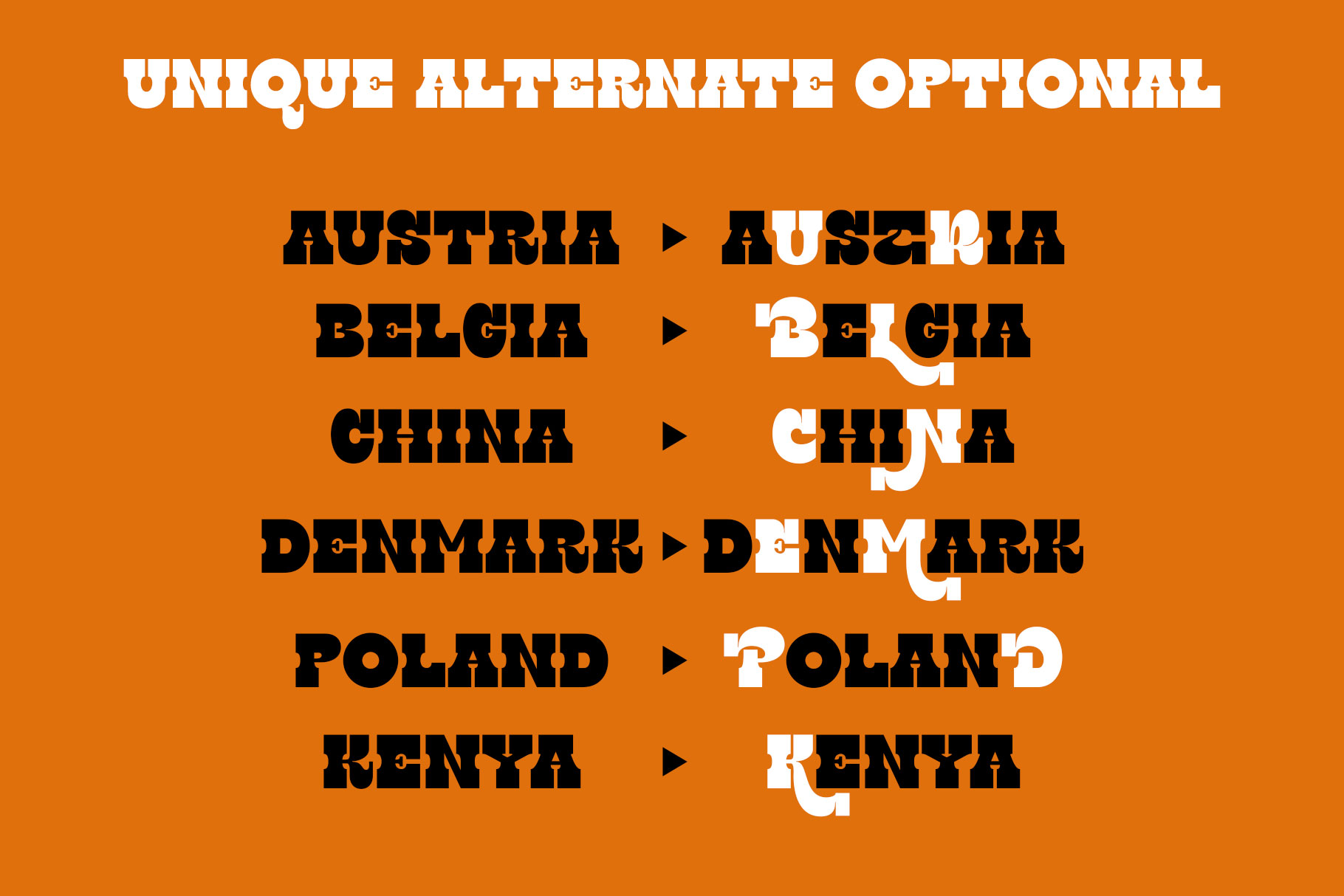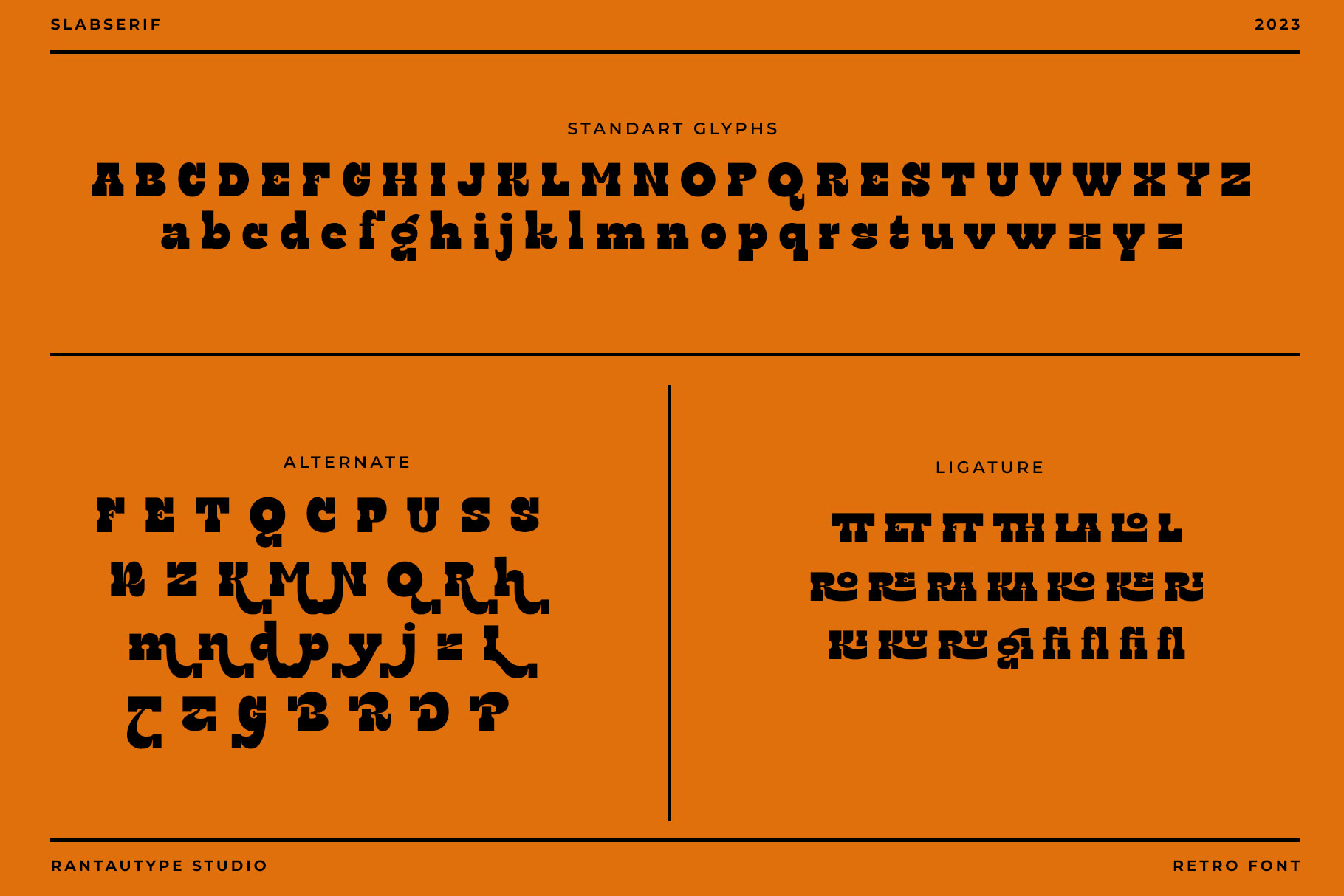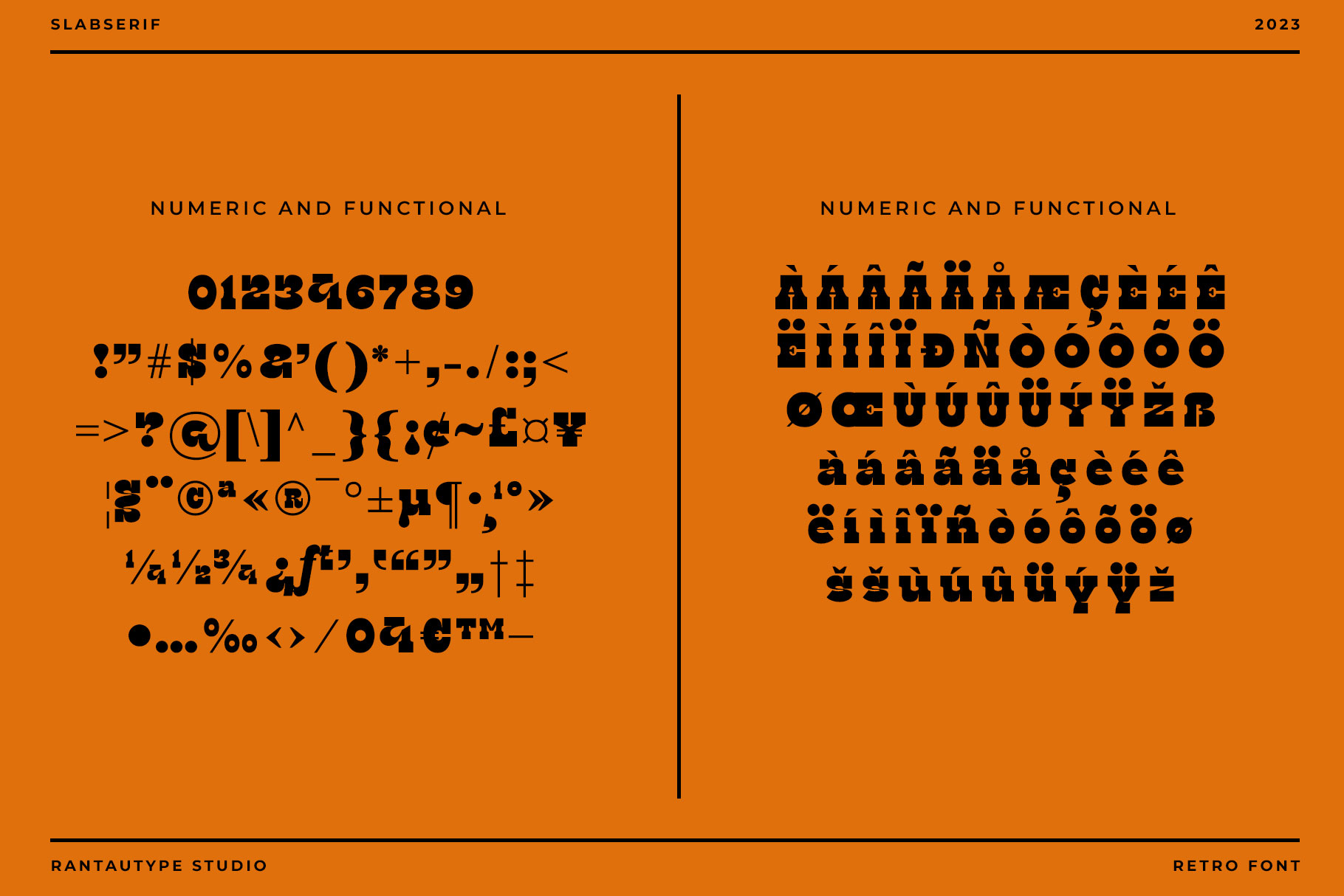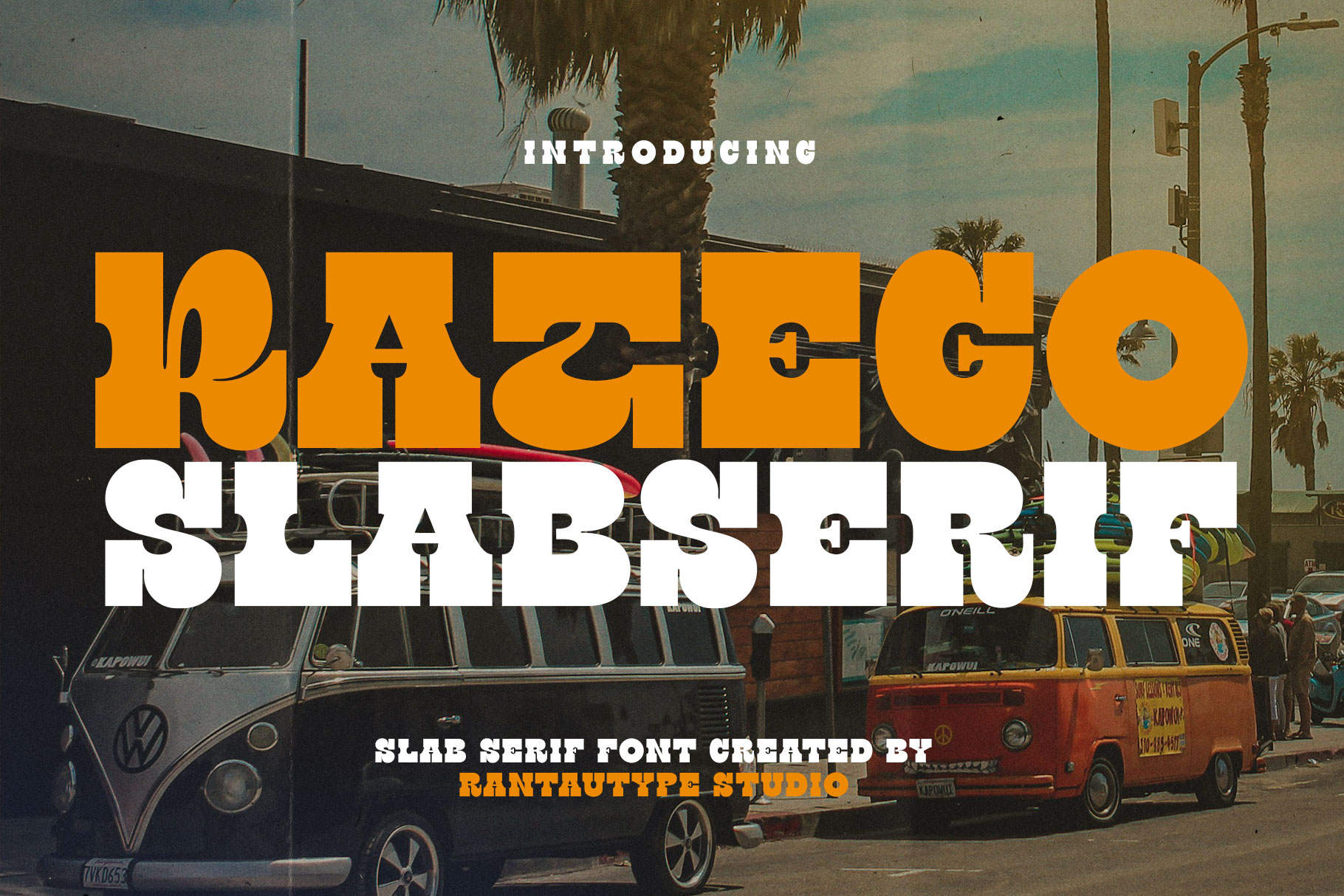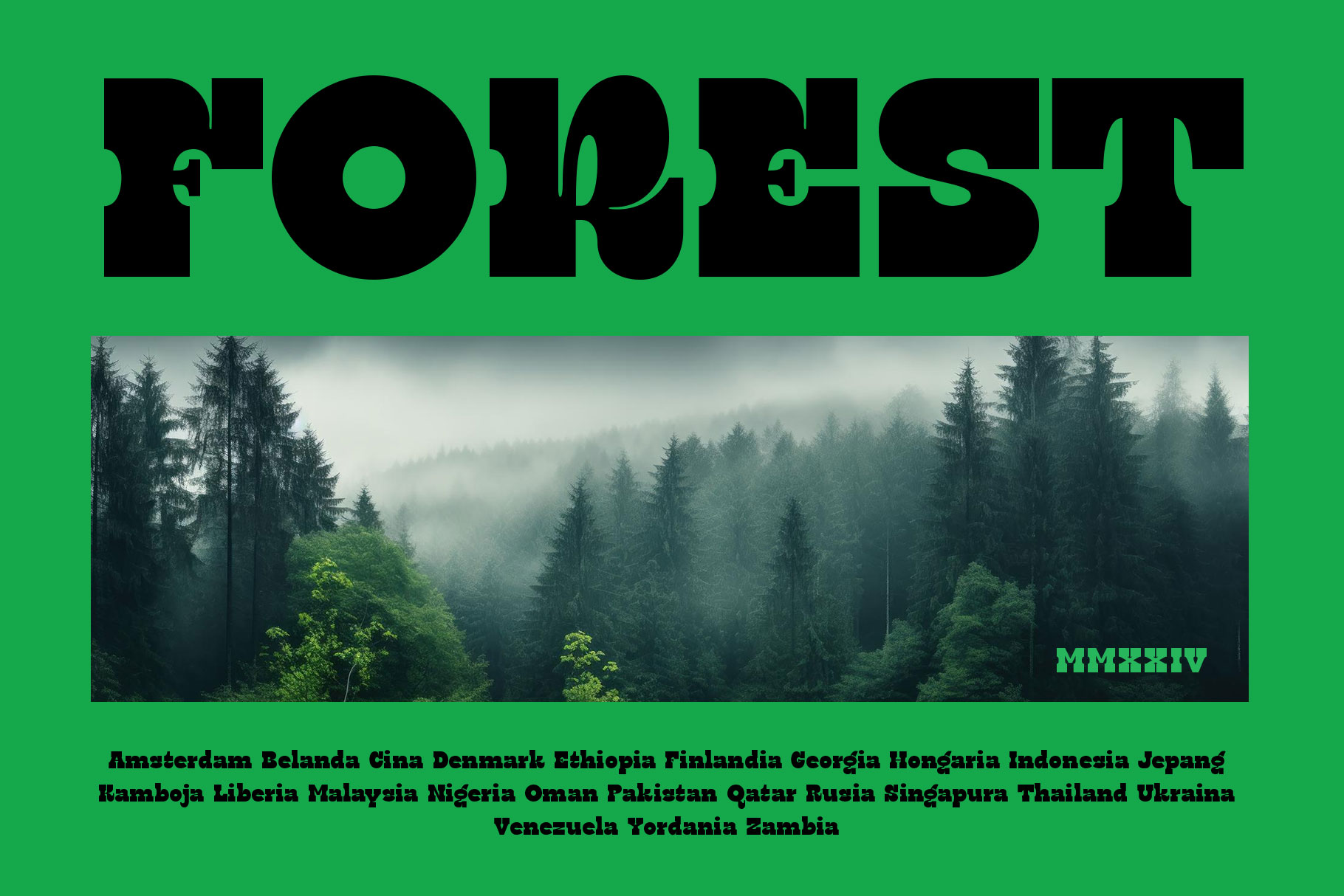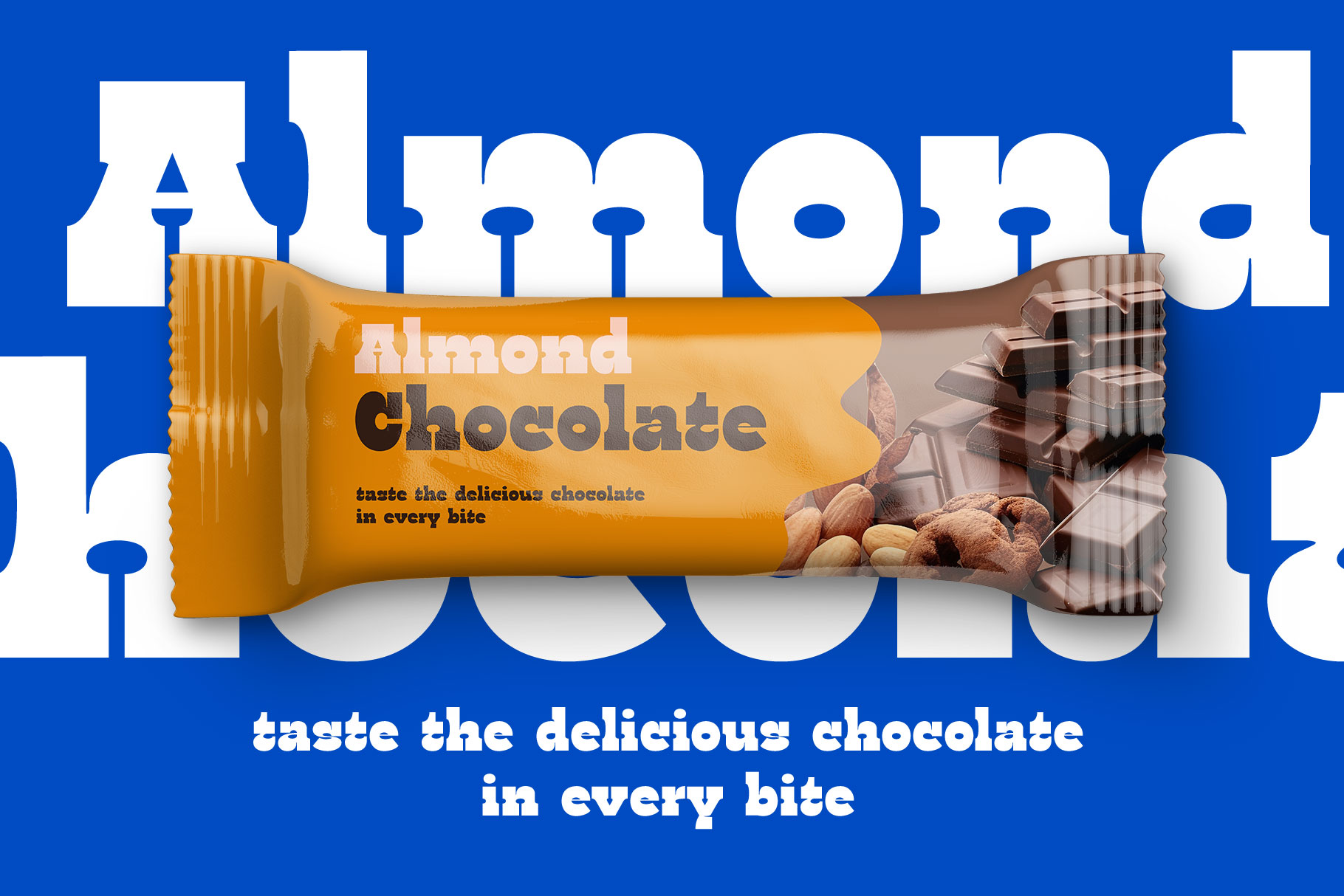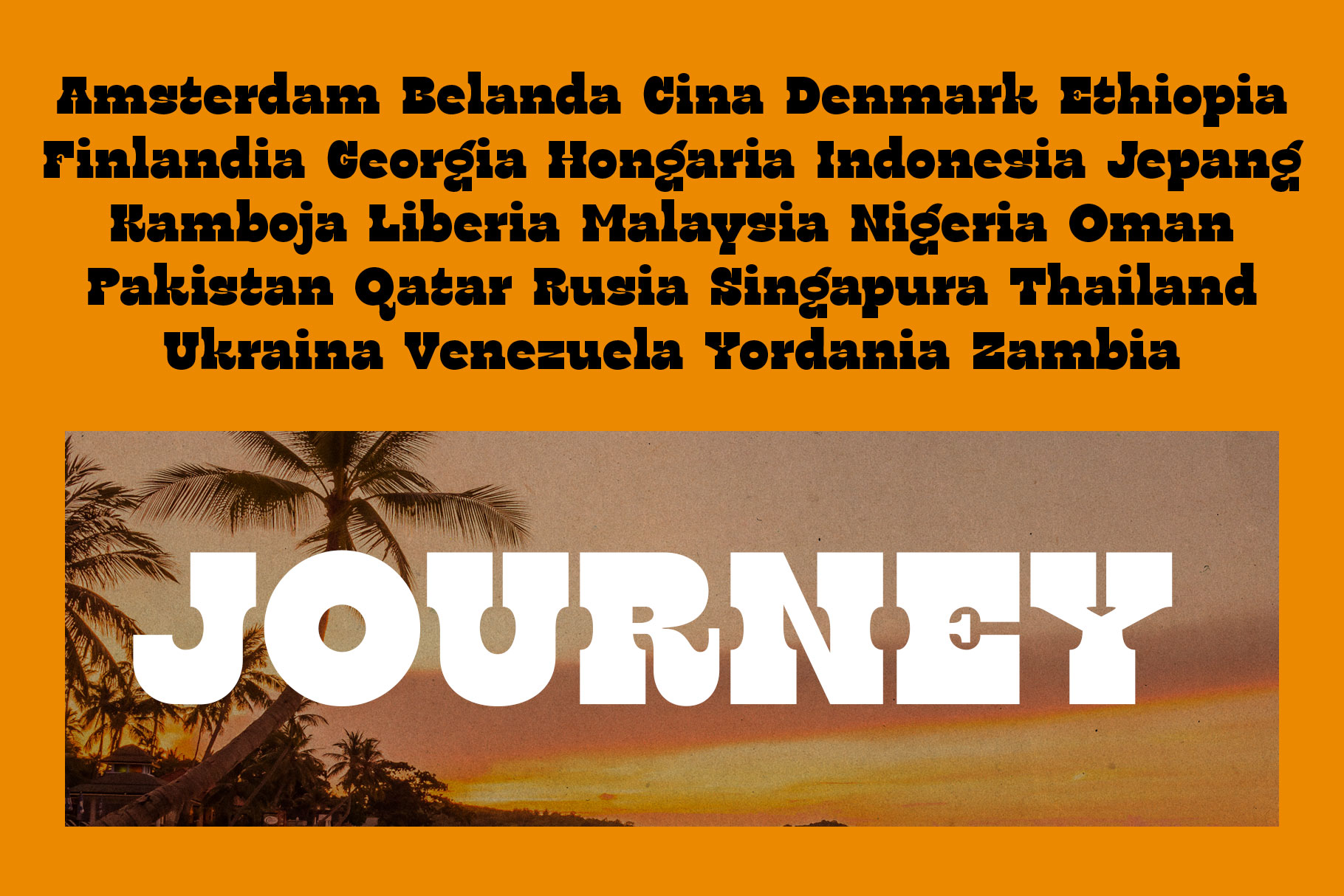
Ratego Slab Serif Font
Ratego is slab serif font inspired by the 80s and 90s vibe font. Ratego come with strong and bold shape perfectly create a project that have a retro feeling but not to old.
Ratego is a perfectly choice for any creative endeavor, chic, lifestyle design such as logotype, advertisements, watermark on photography, stationery, branding project, display and magazine, invitation, poster, corporate brand, product design, label, business project and many other project with fun or a formal kind touch.